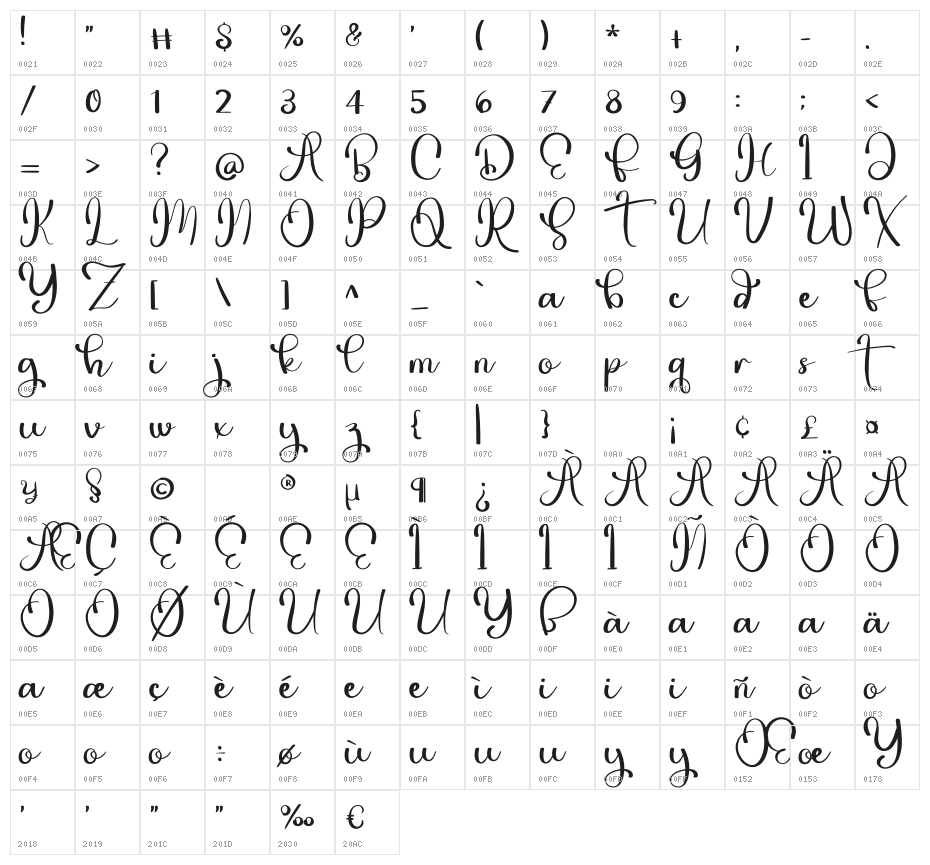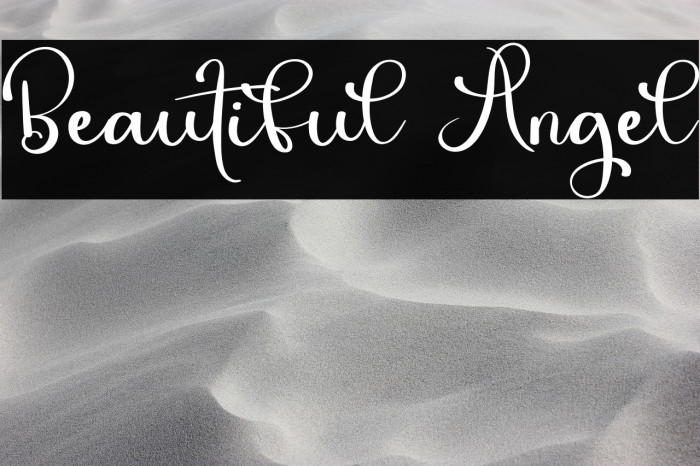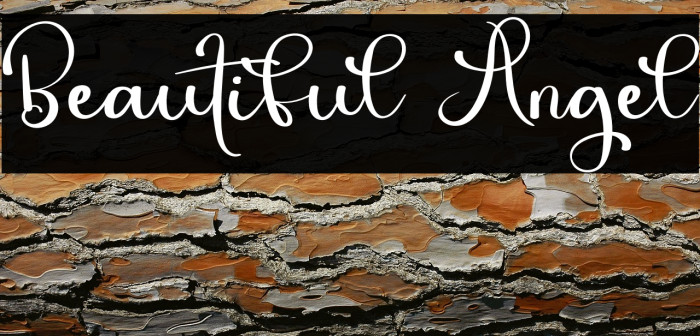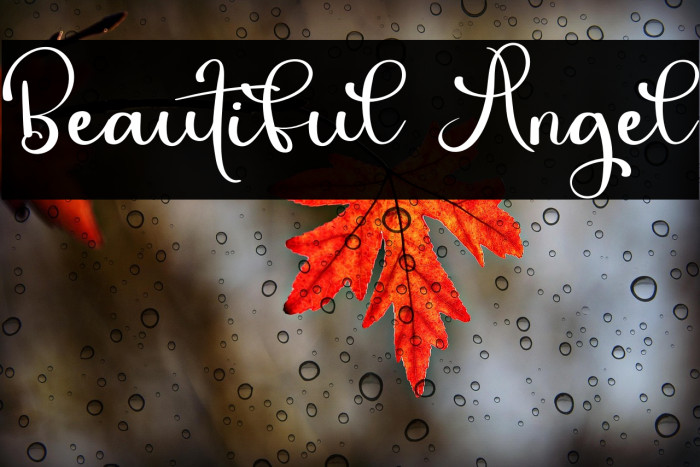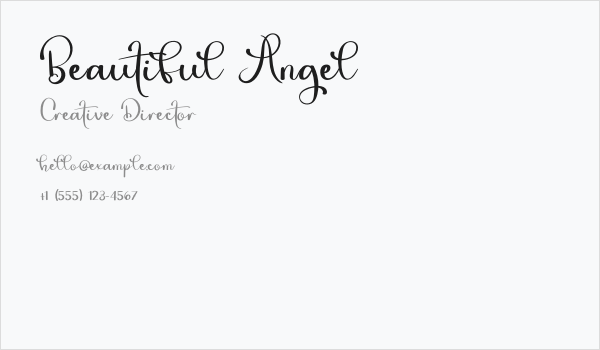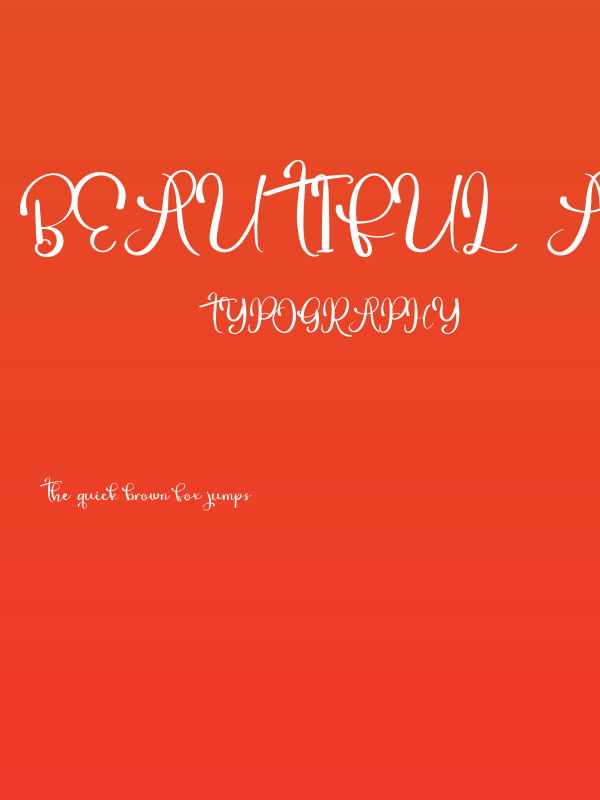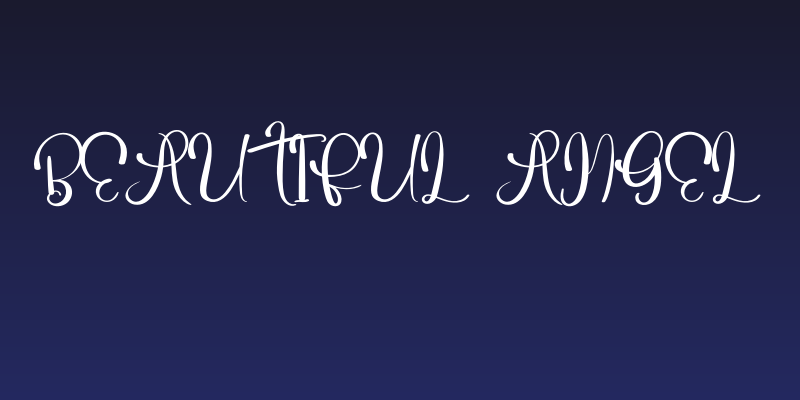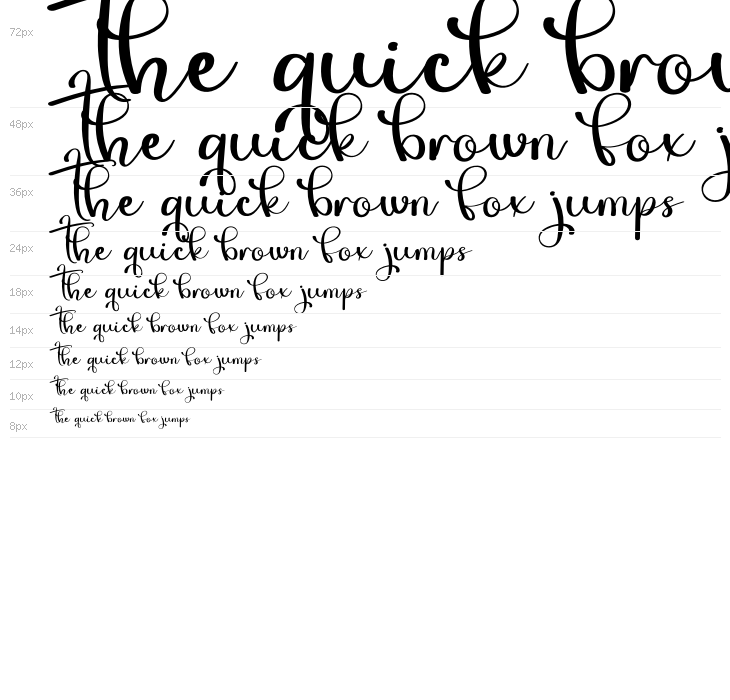
Beautiful Angel Font
Beautiful Angel Description
This font exudes a charming and whimsical style, characterized by its flowing, cursive script. The uppercase letters are elegantly looped and interconnected, giving a sense of fluidity and grace. The lowercase letters maintain a consistent style, with playful curves and a slightly informal touch. The numerals are bold and clear, complementing the overall aesthetic. Special characters are creatively designed, adding to the font's decorative appeal. This font is perfect for projects that require a personal, handwritten feel, such as invitations, greeting cards, or artistic branding.
Use CaseLogos, Headlines, Invitations
Proposed ProjectsIdeal for wedding invitations, greeting cards, artistic branding, and decorative projects.